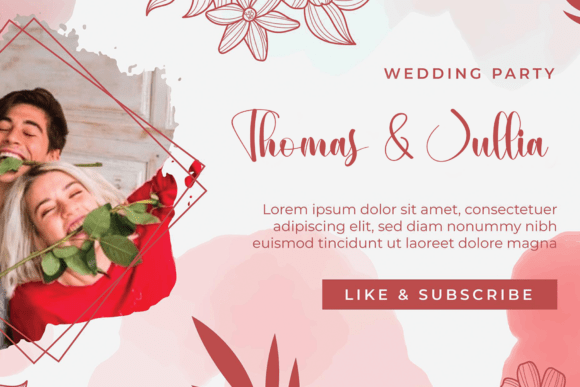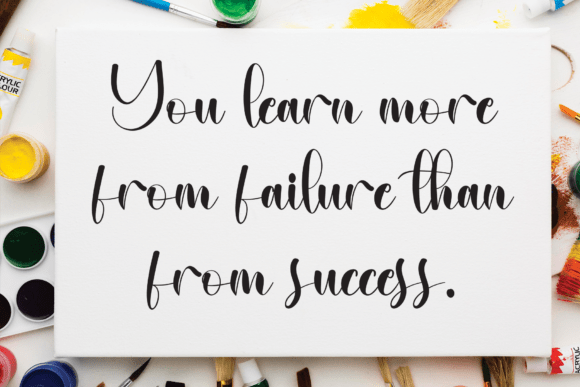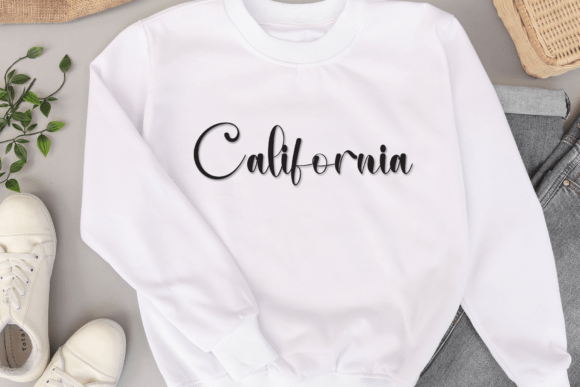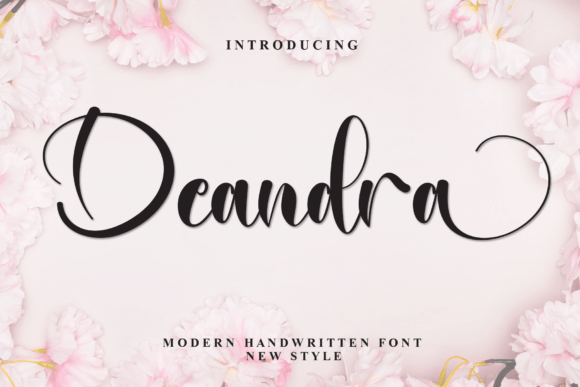
Introduction to Deandra Font
Deandra font is a sophisticated and sleek script that embodies the essence of modern luxury and feminine grace.
This refined Deandra typeface features elongated connectors and a steady, rhythmic flow that makes it an exceptional choice for boutique branding and high-end stationery By integrating the Deandra font into your designs, you provide a sense of exclusivity and timeless style.